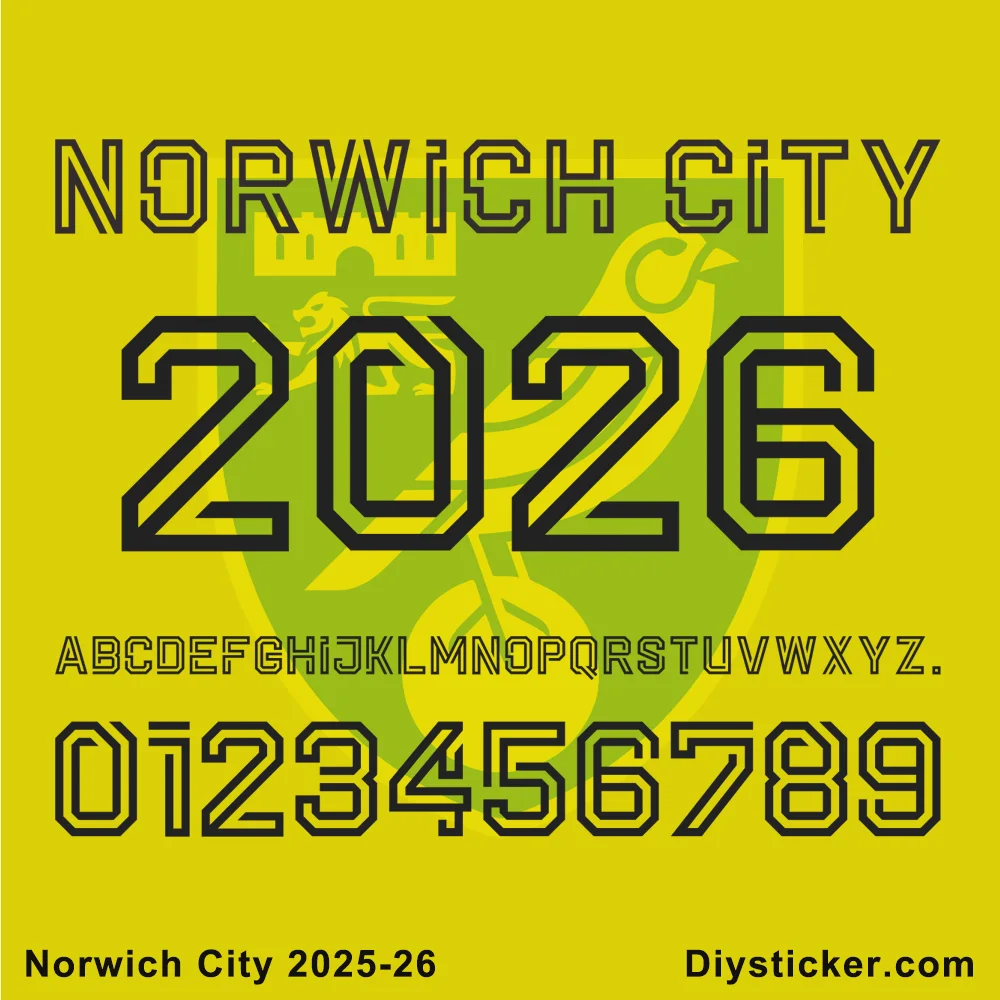
Show your support for The Canaries with the official Norwich City 2025-26 Font. This is the authentic typeface used by the club on its official kits, Championship graphics, and all communications for the new season.